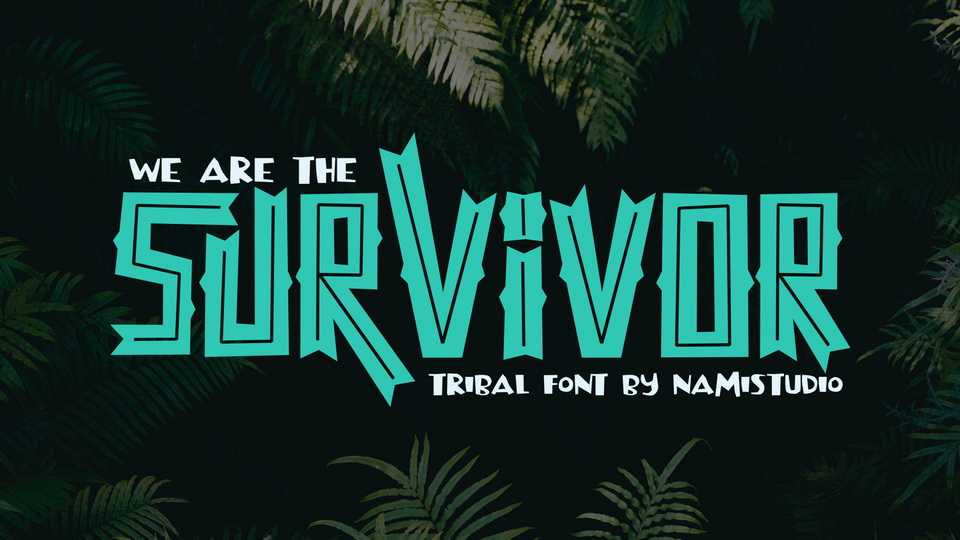
Download Survivor font, a bold display typeface that bring ethnic, jungle, remote location, and embrace of nature to your project.
Designer: NamiStudio